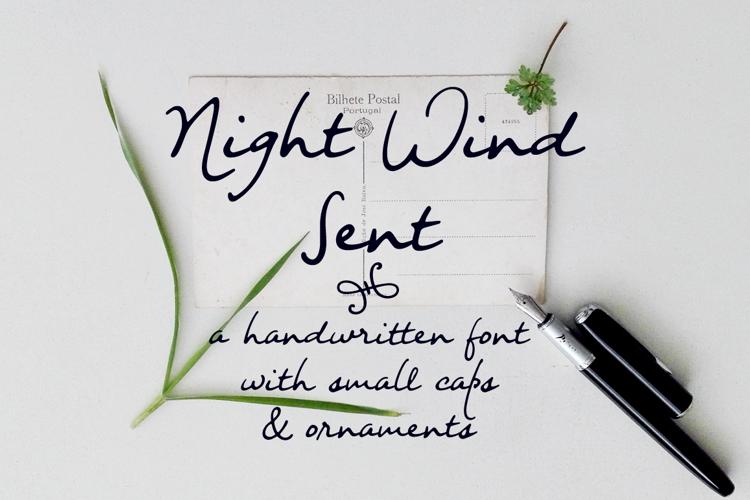
Night Wind Sent Sample Font
About Night Wind Sent Sample Font
This is a free (for private use) *demo* version of Night Wind Sent, an elegant handwritten font. In its full version, it includes:
- A-Z, a-z, 0-9, accents punctuation and symbols
- Ligatures
- Stylistic Alternates
- Small Caps
- Swashes
- Extra versions of the font: underline and strikethrough
- Ornaments with which to decorate your text